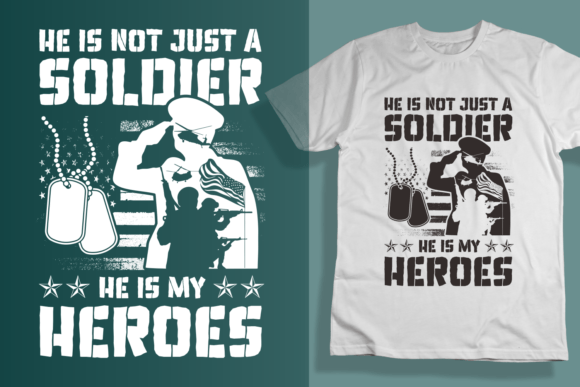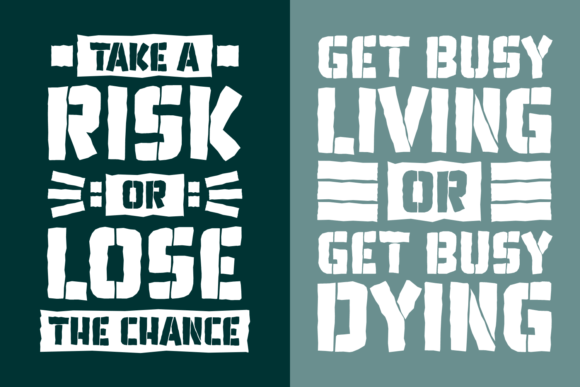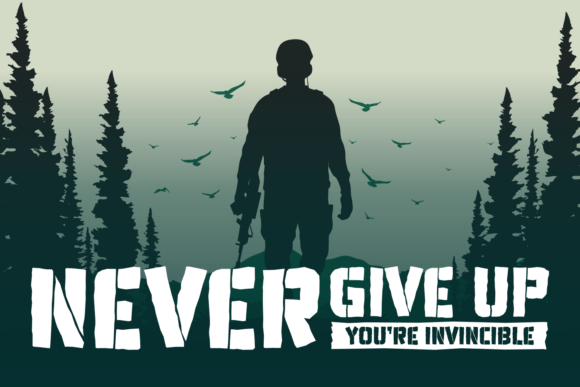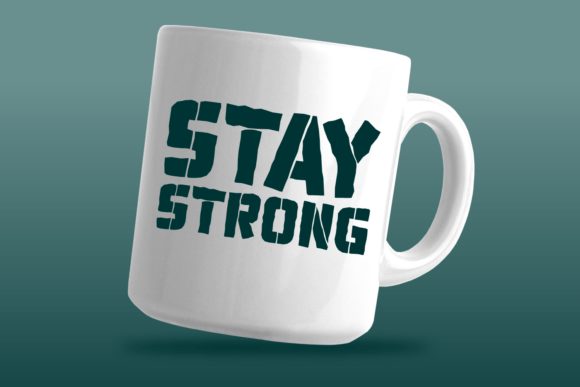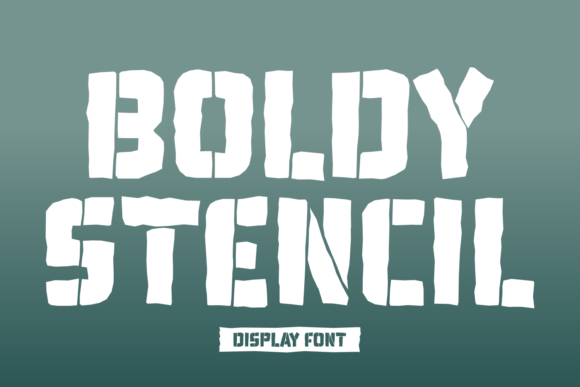
Introducing Boldy Stencil Font: The Ultimate Display Font for Impactful Designs
In the world of typography, a good font can make all the difference in the success of a design project. When it comes to creating eye-catching headers, titles, or logos, a bold and clear-cut font is essential. This is where Boldy Stencil Font comes in – a strong and eye-catching display font that’s perfect for designers and crafters looking to make a powerful statement.
The Power of Boldy Stencil Font
Boldy Stencil Font is designed to grab attention and leave a lasting impression. Its bold and clear-cut design makes it perfect for use in headers, titles, or logos where you want to make a statement. The stencil style adds a touch of modernity, giving your text a distinctive and memorable appearance that’s sure to stand out.
Key Features of Boldy Stencil Font
- Bold and Clear-Cut Design: Boldy Stencil Font features a bold and clear-cut design that’s perfect for grabbing attention.
- Stencil Style: The stencil style adds a touch of modernity, giving your text a distinctive and memorable appearance.
- Perfect for Headers, Titles, or Logos: Boldy Stencil Font is perfect for use in headers, titles, or logos where you want to make a statement.
- Easy to Read: Despite its bold design, Boldy Stencil Font is easy to read, making it perfect for use in a variety of design projects.
Why Choose Boldy Stencil Font?
There are many fonts available that claim to be bold and eye-catching, but Boldy Stencil Font stands out from the rest. Here are just a few reasons why:
- Unique Design: Boldy Stencil Font features a unique design that’s sure to grab attention.
- Versatile: Boldy Stencil Font is perfect for use in a variety of design projects, from branding and posters to logos and more.
- Easy to Use: Boldy Stencil Font is easy to use and can be easily integrated into your design project.
How to Use Boldy Stencil Font
Boldy Stencil Font is perfect for use in a variety of design projects. Here are just a few ideas to get you started:
- Branding: Use Boldy Stencil Font to create bold and eye-catching logos or branding materials.
- Posters: Boldy Stencil Font is perfect for use in posters where you want to grab attention.
- Headers and Titles: Use Boldy Stencil Font to create bold and eye-catching headers and titles.
Tips for Getting the Most Out of Boldy Stencil Font
Here are a few tips for getting the most out of Boldy Stencil Font:
- Use it Sparingly: While Boldy Stencil Font is perfect for grabbing attention, it’s best to use it sparingly to avoid overwhelming your design.
- Pair it with Other Fonts: Boldy Stencil Font pairs well with other fonts, so don’t be afraid to experiment with different combinations.
- Experiment with Colors: Boldy Stencil Font looks great in a variety of colors, so don’t be afraid to experiment with different color schemes.
In conclusion, Boldy Stencil Font is a powerful and eye-catching display font that’s perfect for designers and crafters looking to make a statement. Its bold and clear-cut design, stencil style, and versatility make it perfect for use in a variety of design projects. Whether you’re working on branding, posters, or any design that demands impact, Boldy Stencil Font delivers a bold and straightforward typographic solution with style.